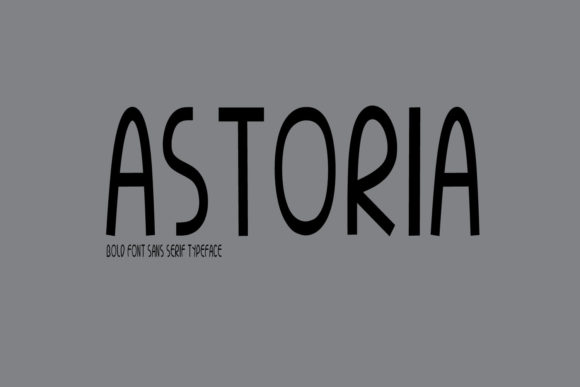
The Astoria Font: A Simple yet Versatile Sans Serif for Your Designs
Have you ever been in the middle of a design project, and suddenly, you’re stuck on finding the perfect font? I recall a recent experience where I was working on a casual, outdoor-themed craft project, and my client requested a font that was both modern and natural. After scouring through numerous font libraries, I stumbled upon the Astoria font, which turned out to be a game-changer. In this article, I’ll share my journey with Astoria, its features, and how you can make the most of this versatile font in your designs.
A Personal Review of Astoria Font
What I Love About Astoria ✨
- ✅ Simple and casual sans serif design that works well for both formal and informal projects
- ✅ Modern and natural feel that adapts to various design themes
- ✅ Highly legible, making it perfect for body text and headings
- ✅ Extensive character set, supporting multiple languages
- ⚠️ Limited stylistic alternates, which might not offer as much creative flexibility for some users
- ⚠️ Not specifically designed for long-form reading, so it might not be the best choice for novels or lengthy articles
The Backstory of Astoria Font
According to its creators, the Astoria font was designed to fill the gap between formal and informal typography. The goal was to craft a font that would be both modern and natural, making it suitable for a wide range of design applications. The designers drew inspiration from everyday typography, aiming to create a font that feels both approachable and sophisticated.
Q: What type of projects is Astoria best suited for?
A: Astoria is a versatile font that works well for various projects, including casual crafts, outdoor-themed designs, and modern digital applications.
Q: Does Astoria support non-English languages?
A: Yes, Astoria has an extensive character set, supporting multiple languages, including those that use the Latin alphabet.
Q: Can I use Astoria for body text in long-form reading materials?
A: While Astoria is highly legible, it might not be the best choice for novels or lengthy articles. Consider using a font specifically designed for long-form reading for optimal readability.